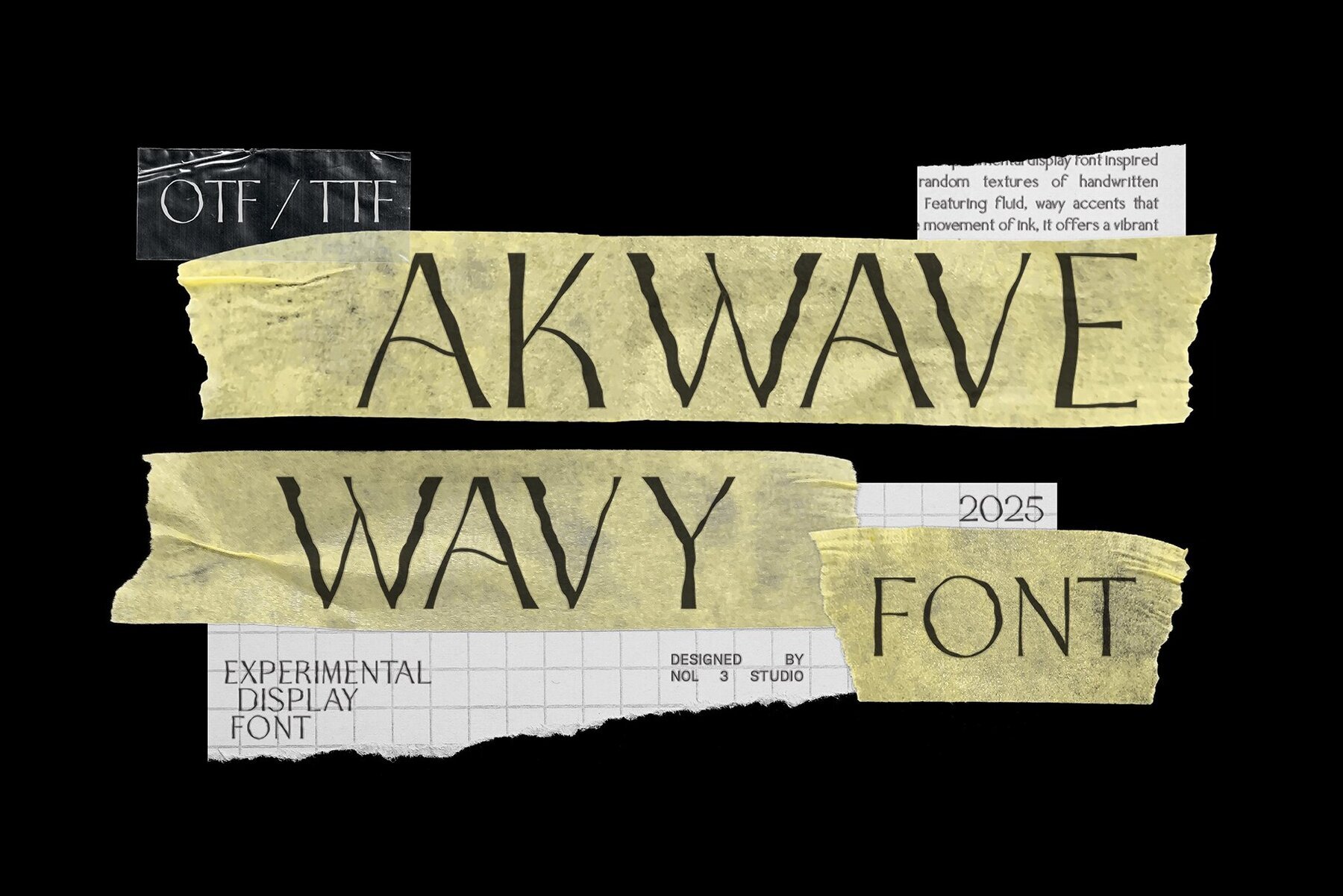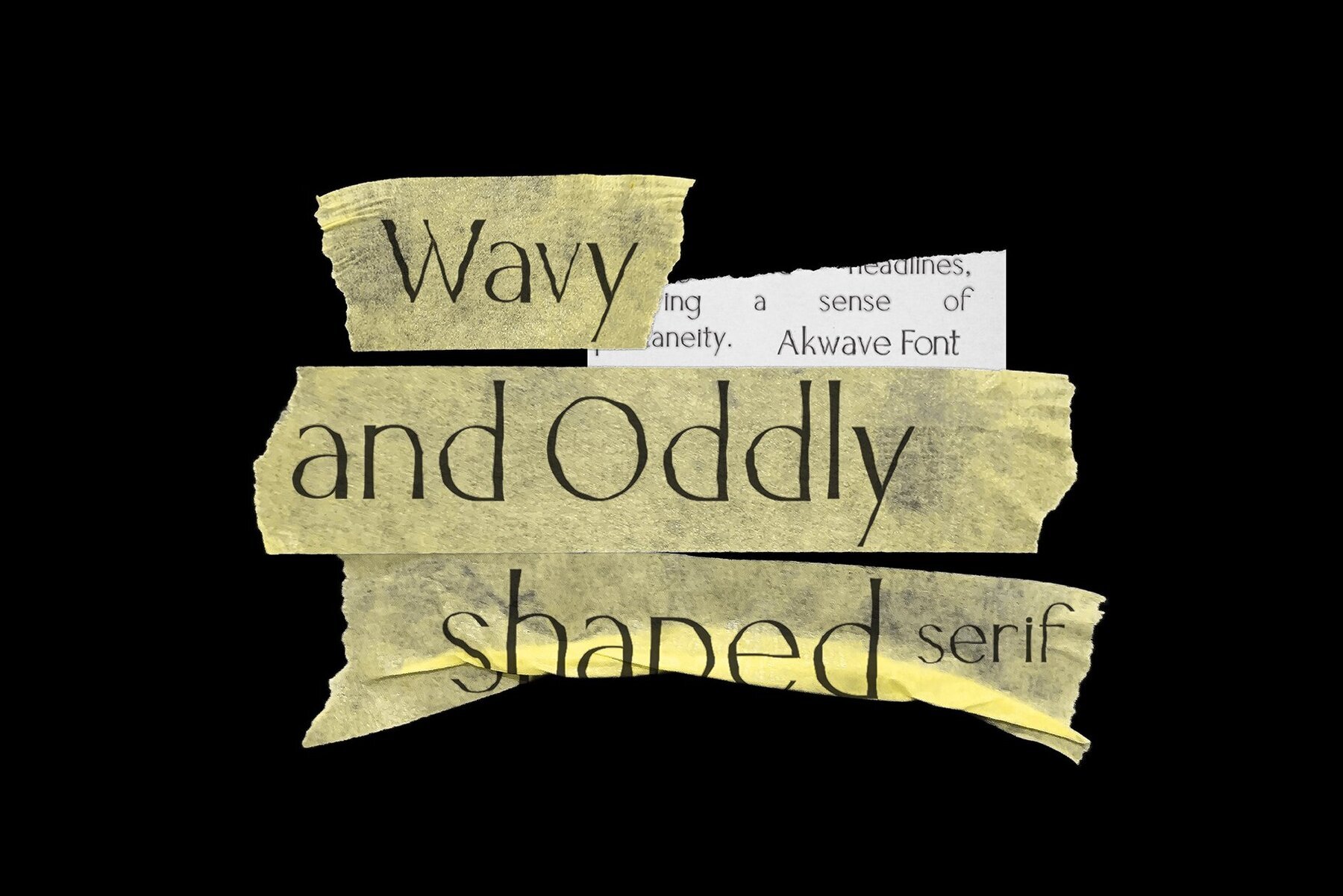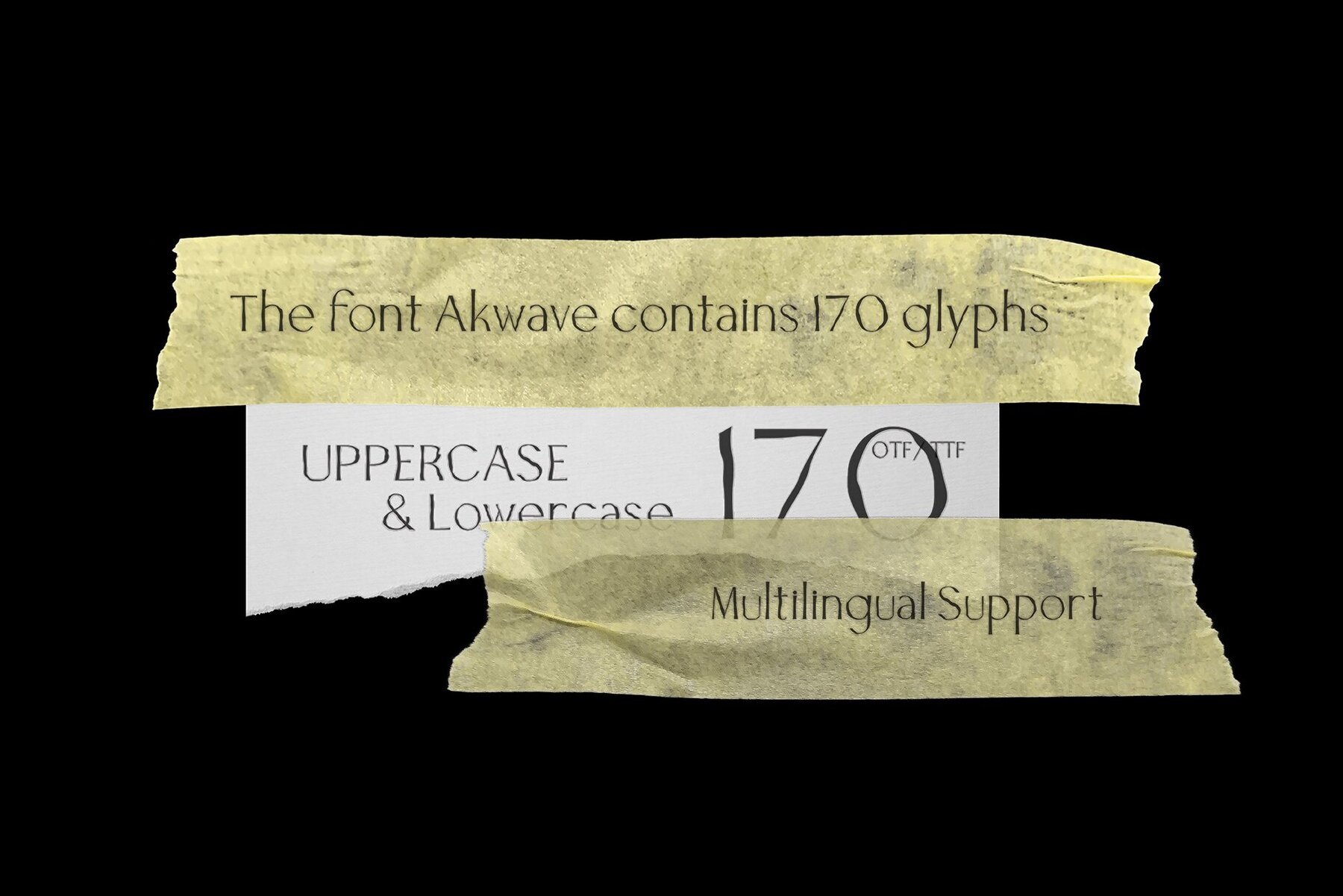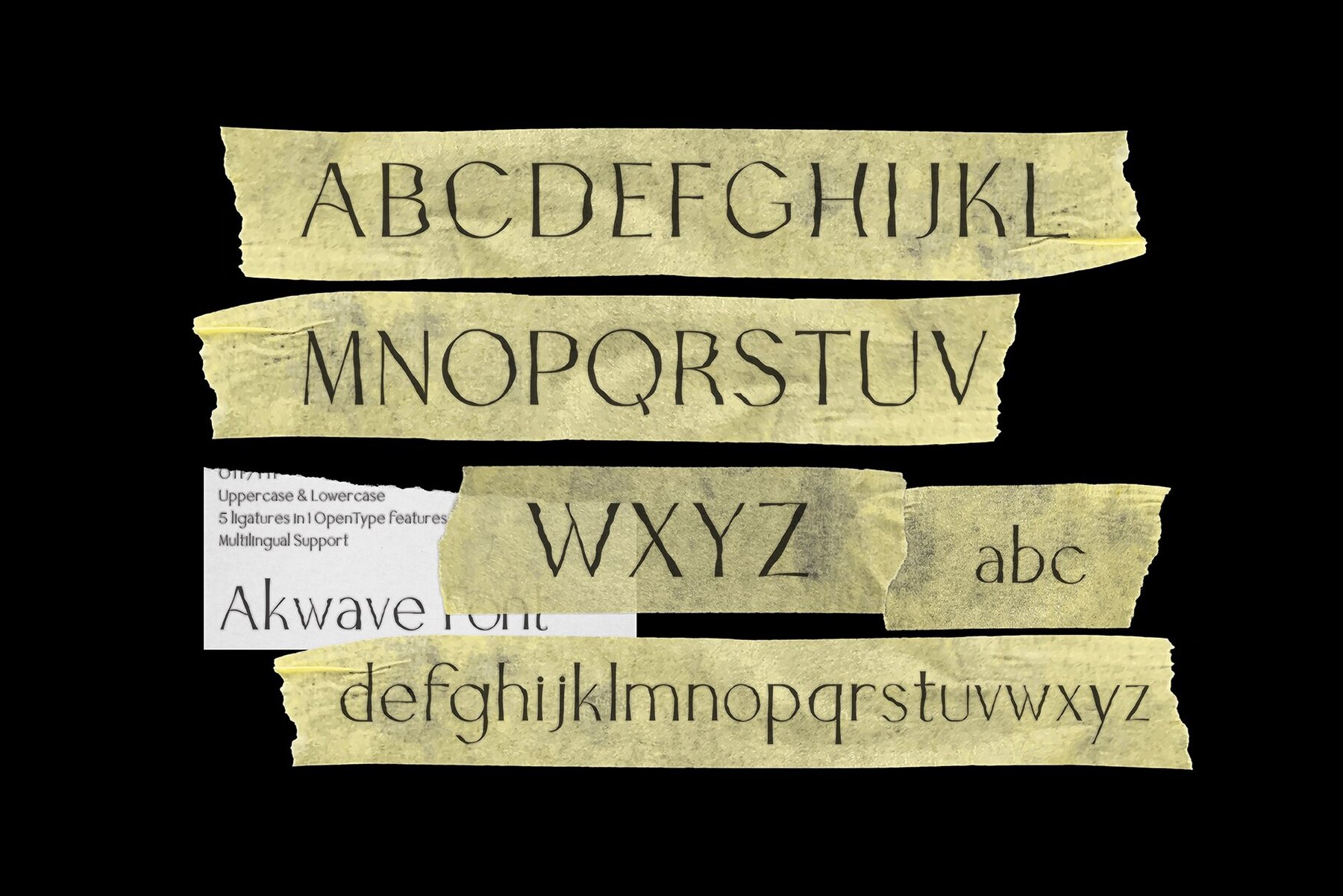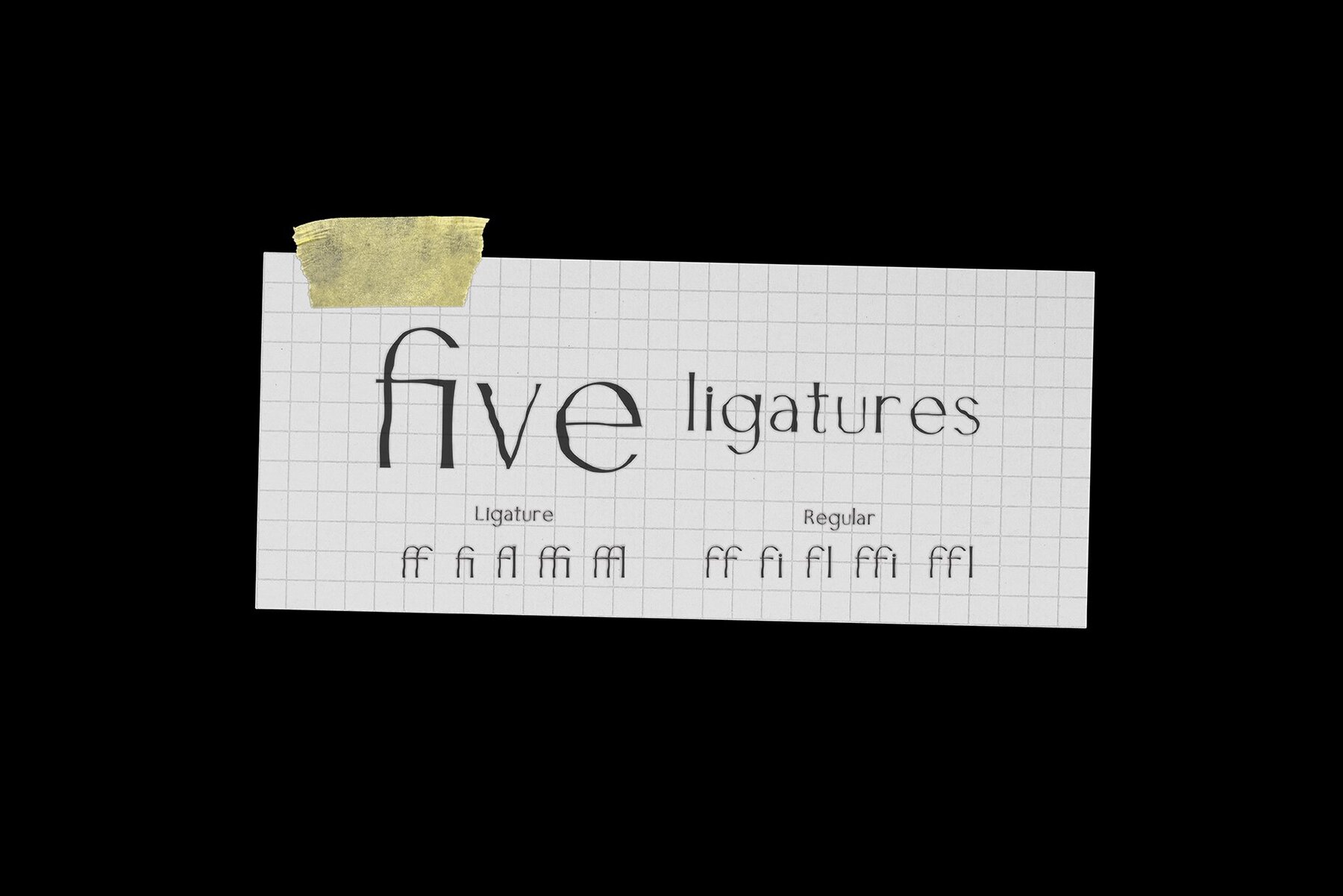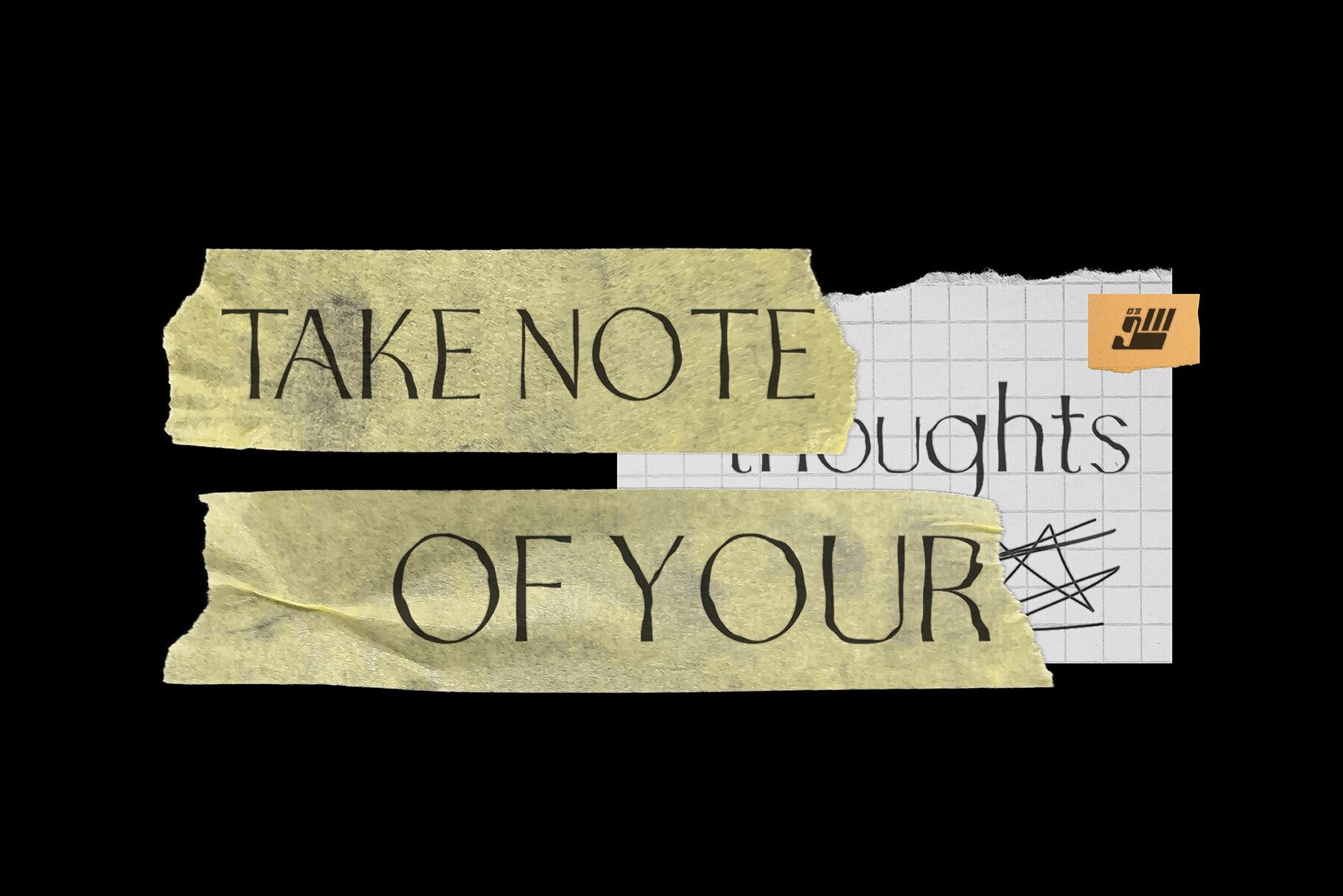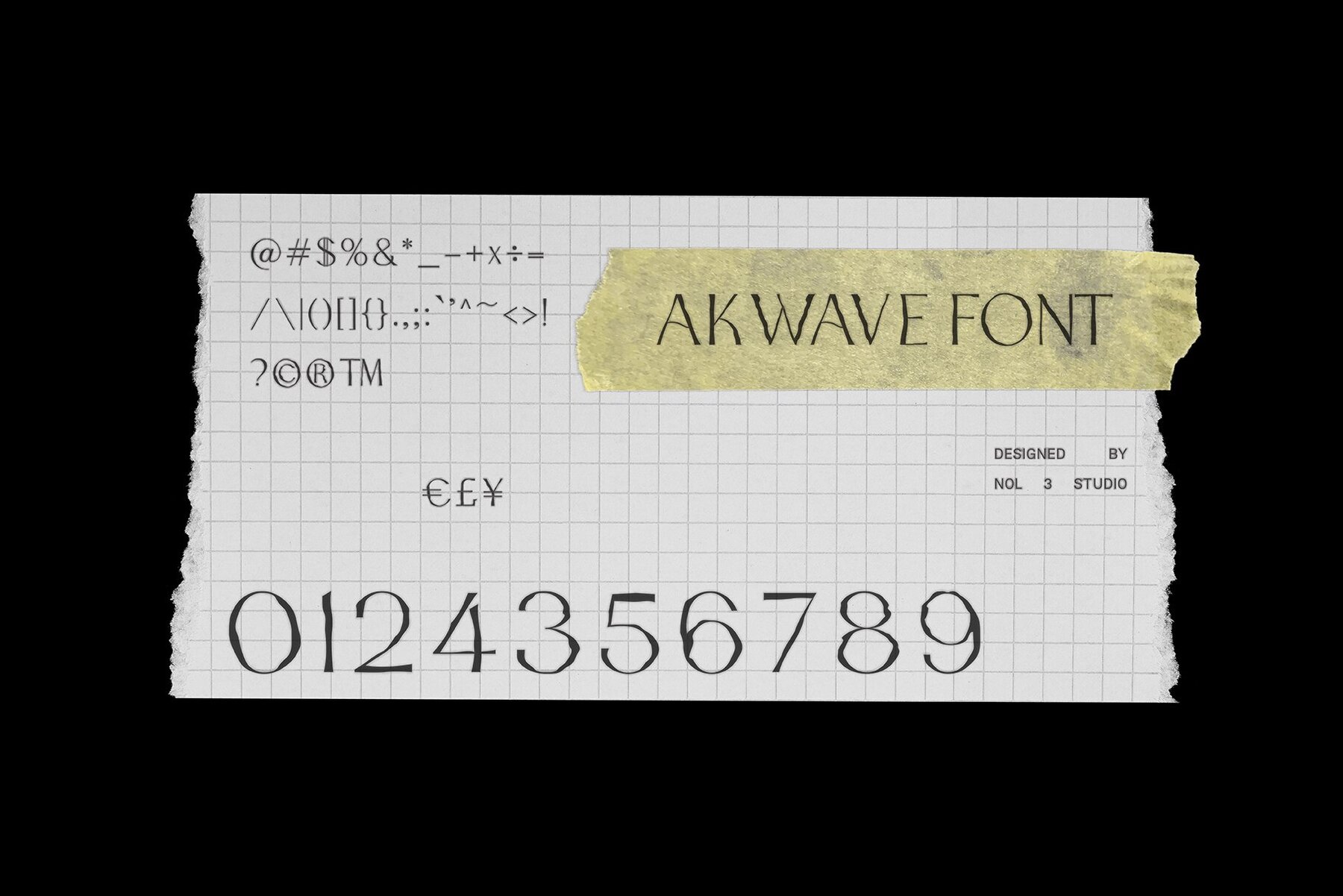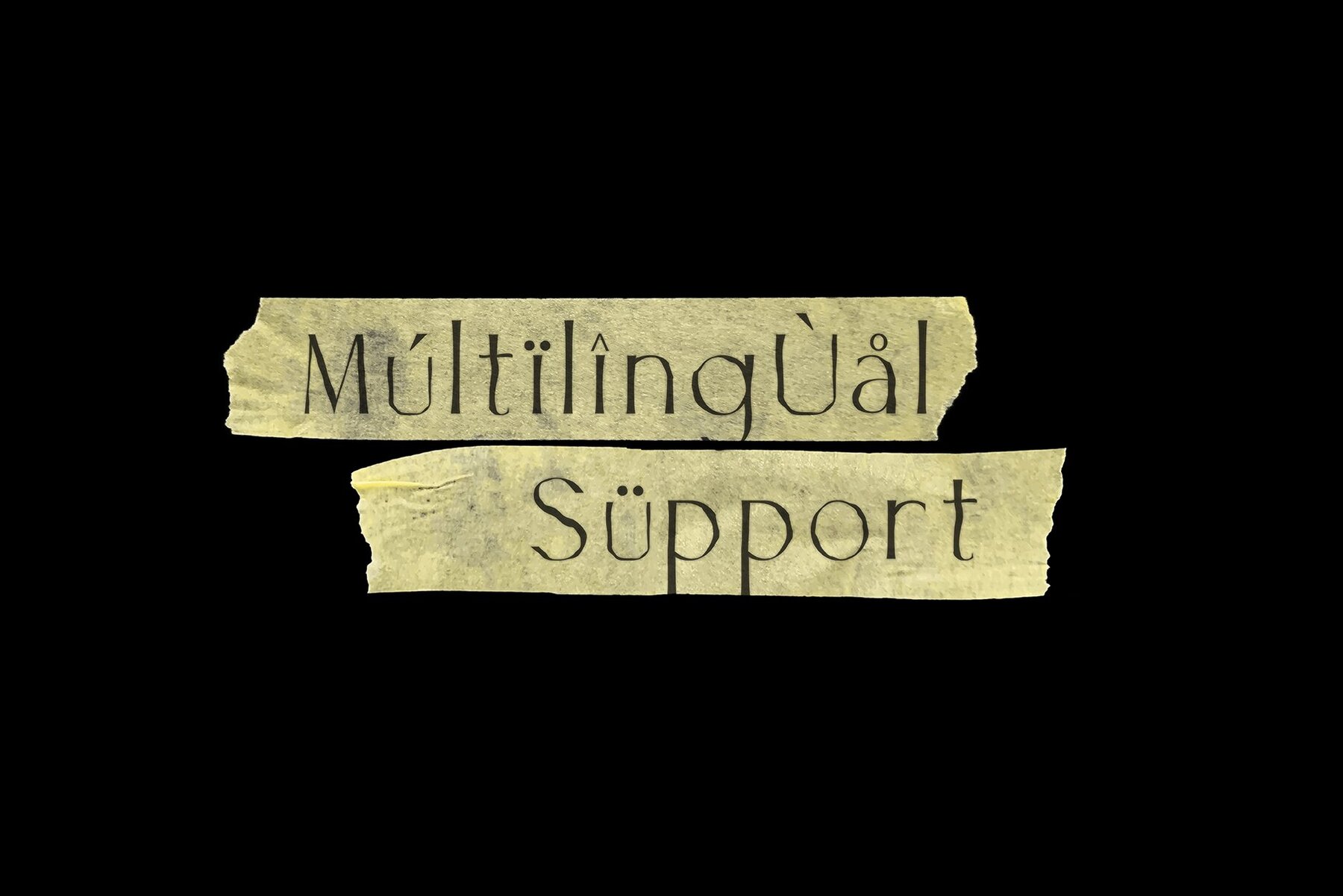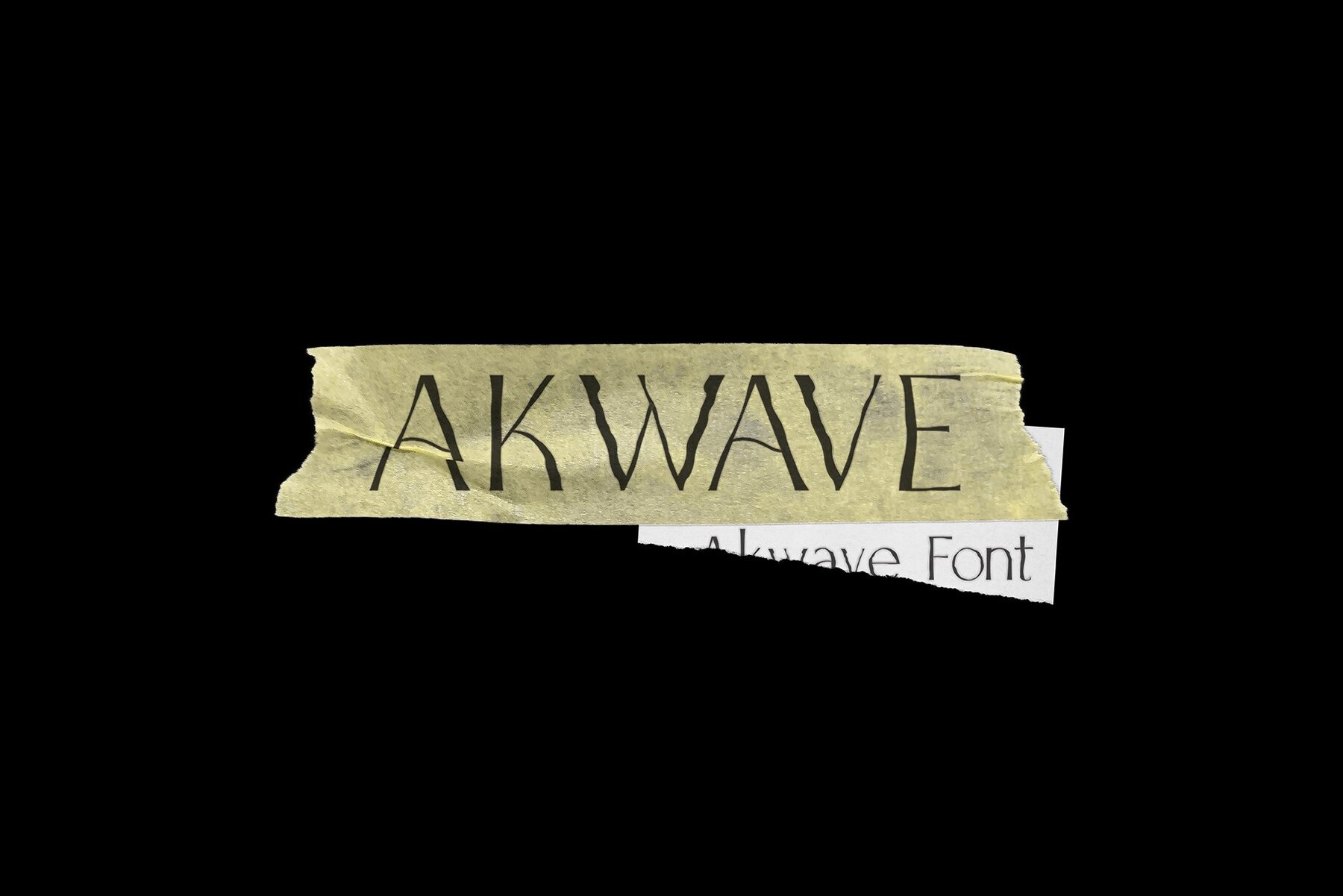
Akwave Wavy Font
Akwave Wavy is an experimental display sans serif font that draws inspiration from the unpredictable textures of handwritten lettering. Its distinctive wavy accents mirror the dynamic movement of ink, providing a vibrant and artistic flair. Perfect for creative projects, Akwave brings a touch of spontaneity to branding and headlines.
- Contains 170 glyphs
- Includes both uppercase and lowercase characters
- Features numbers and punctuation
- Offers 5 ligatures in 1 OpenType feature
- Provides multilingual support
Akwave Wavy is manufactured by NOL 3 STUDIO ©2024, making it a unique and compelling choice for designers seeking to infuse their work with artistic unpredictability.